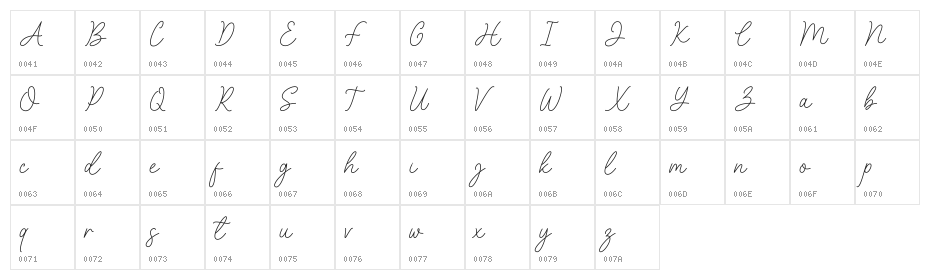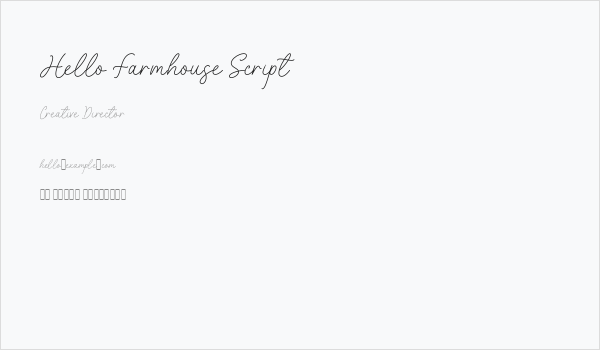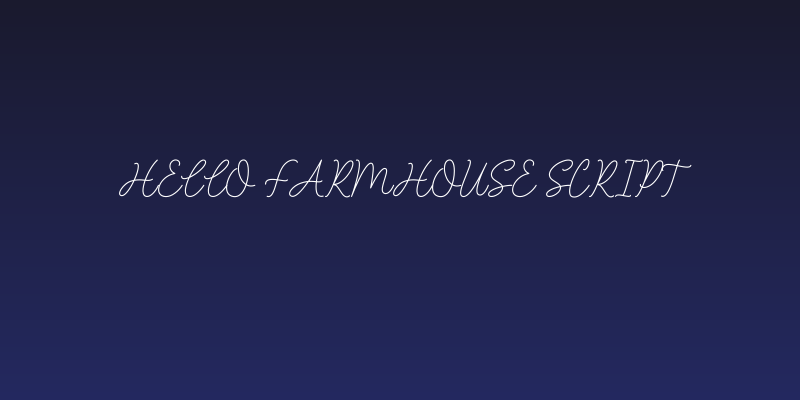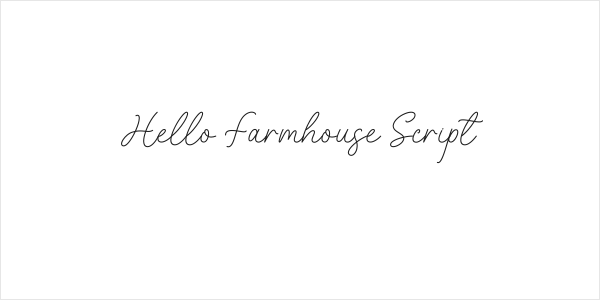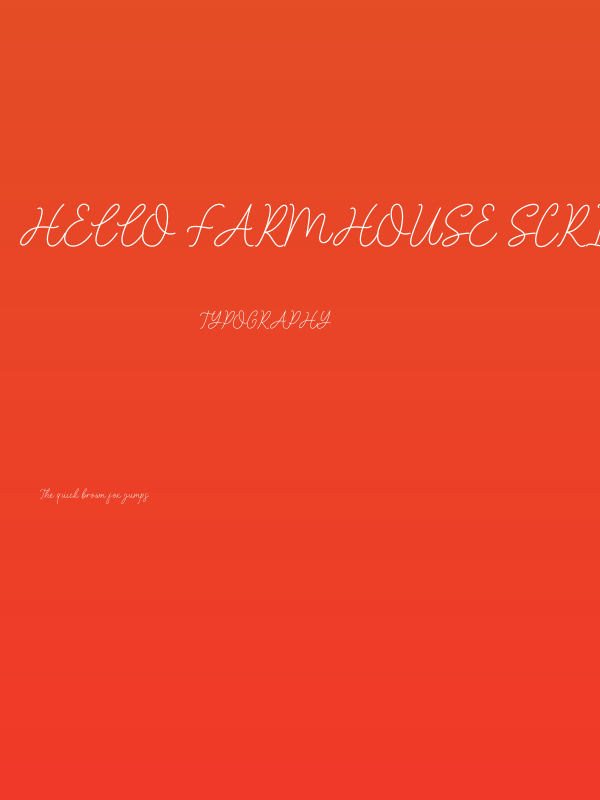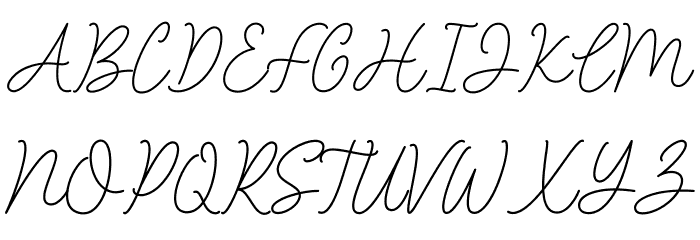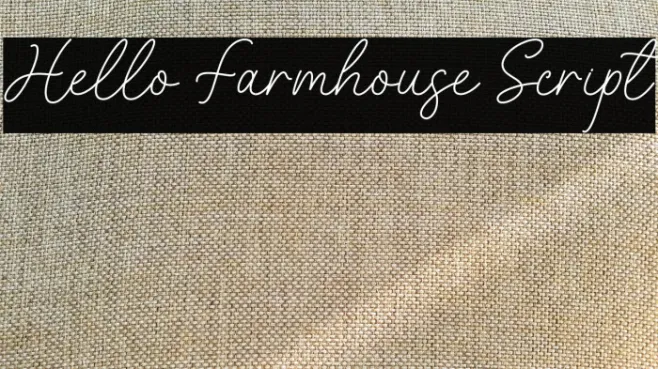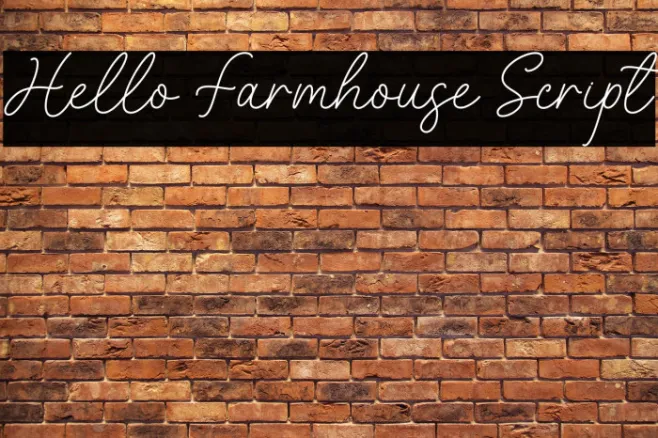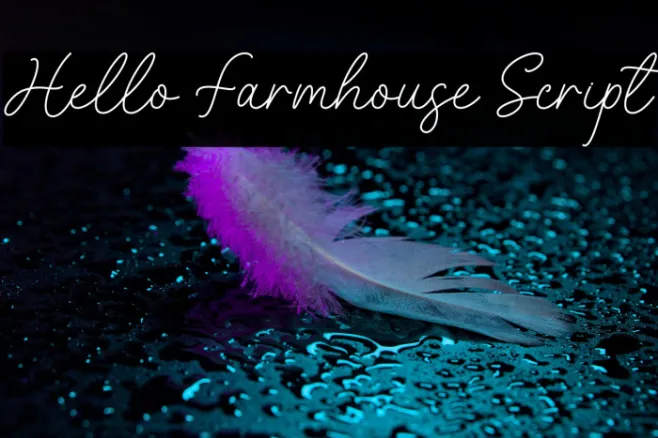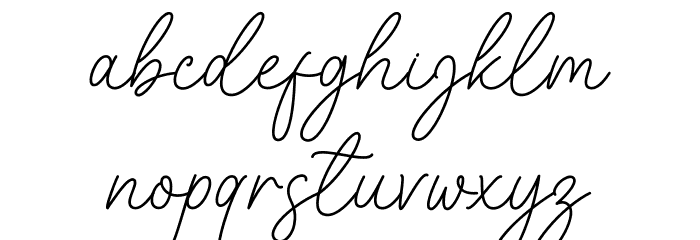
Hello Farmhouse Script Font
Hello Farmhouse Script Description
This font exudes a charming and rustic elegance, characterized by its flowing script style that mimics the fluidity of natural handwriting. The letters are connected with smooth, sweeping curves, giving it a cohesive and harmonious appearance. The uppercase letters are slightly more ornate, with flourishes that add a touch of sophistication, while the lowercase letters maintain a consistent rhythm and balance. The overall look is both casual and refined, making it versatile for various design applications. The font's delicate lines and graceful loops evoke a sense of warmth and friendliness, perfect for projects that require a personal and inviting touch.
| Proposed Projects | Ideal for wedding invitations, greeting cards, logos, and branding that require a personal touch. |